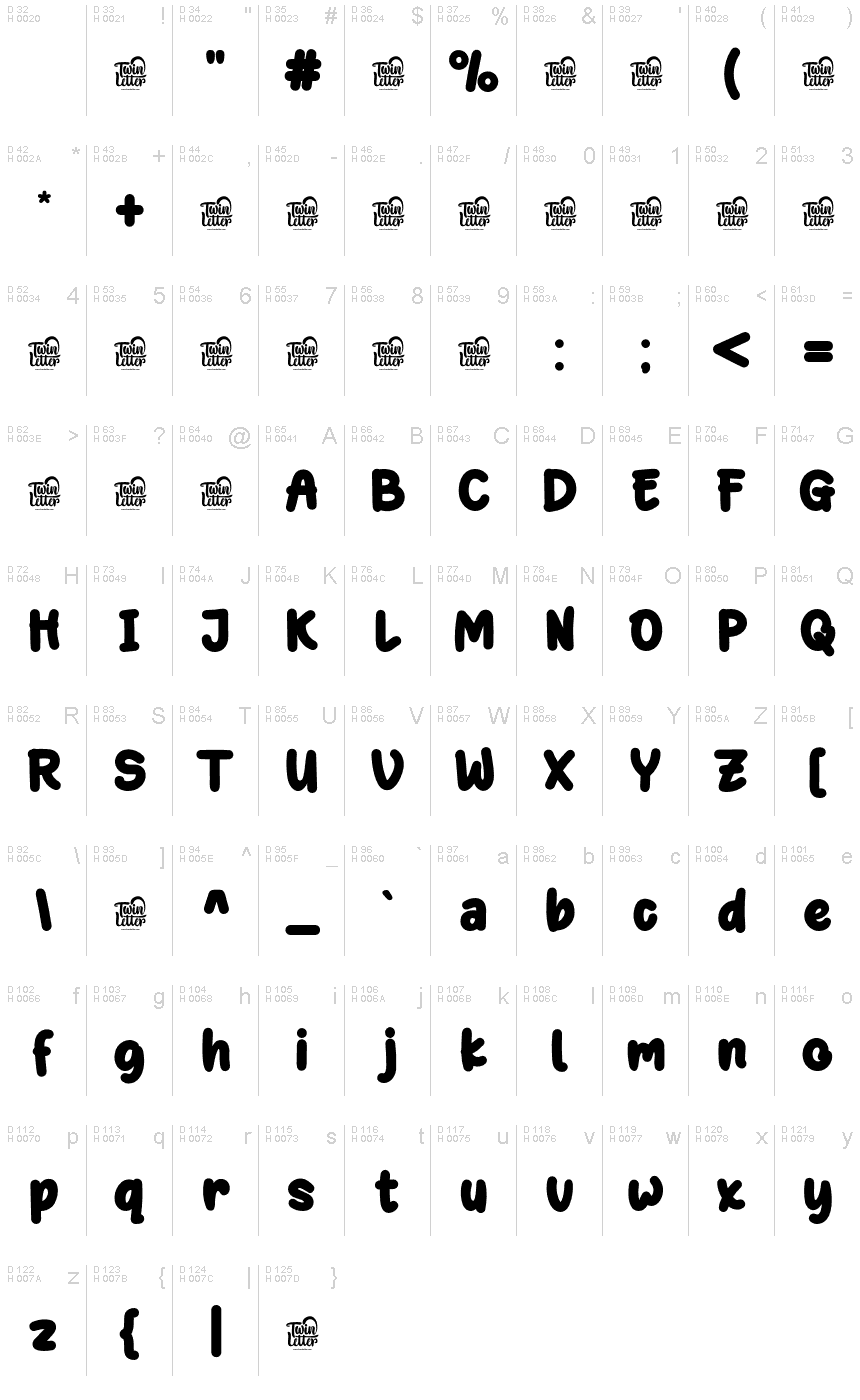
Qandas-Bold
Qandas Bold is a stunning handwritten font that boasts bold strokes and an undeniable sense of personality. The Qandas font family, designed by twinletter, is perfect for projects that require a touch of creativity and uniqueness. From branding to social media graphics, this semi-bold typeface is sure to make your content stand out. Whether you're designing a logo, creating a poster, or simply adding captions to your Instagram posts - Qandas Bold will add that extra oomph to your visuals. Its bold weight makes it perfect for headlines and titles while its handwritten style adds an authentic touch to any project.